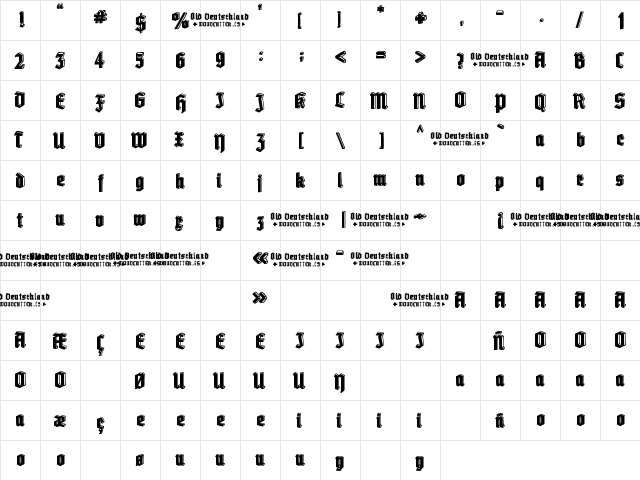
Old Deutschland Regular
| Designer | Woodcutter Manero |
Design Context for Old Deutschland Typeface
Old Deutschland takes a measured approach to typography — its balanced proportions and neutral character make it a reliable workhorse for both digital and print work.